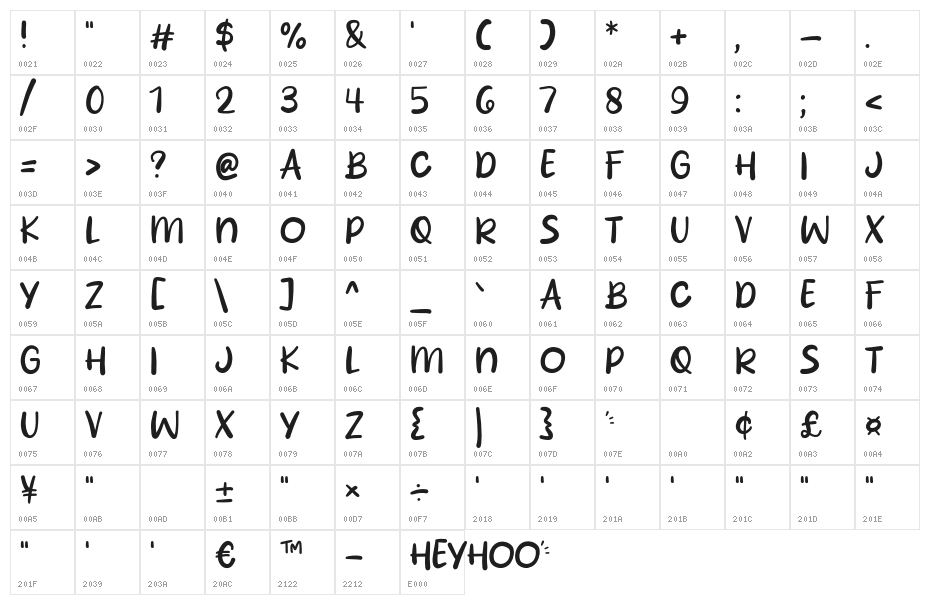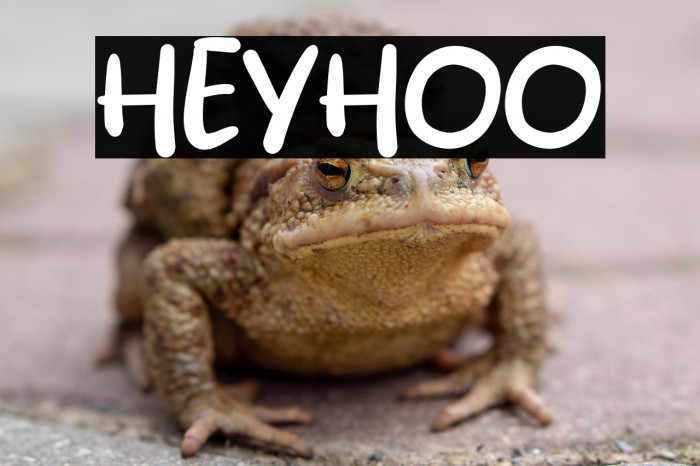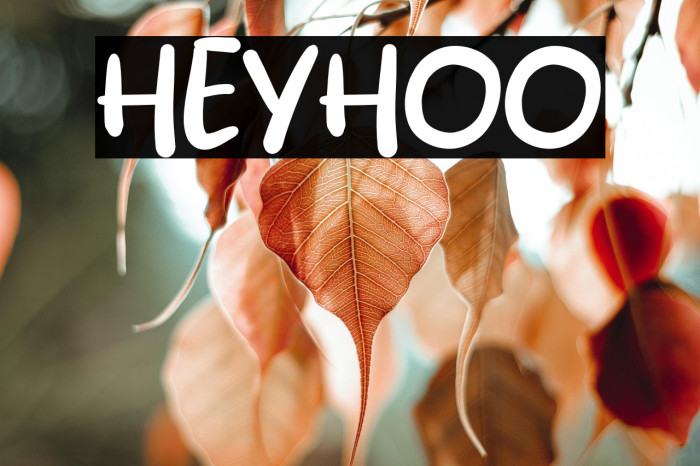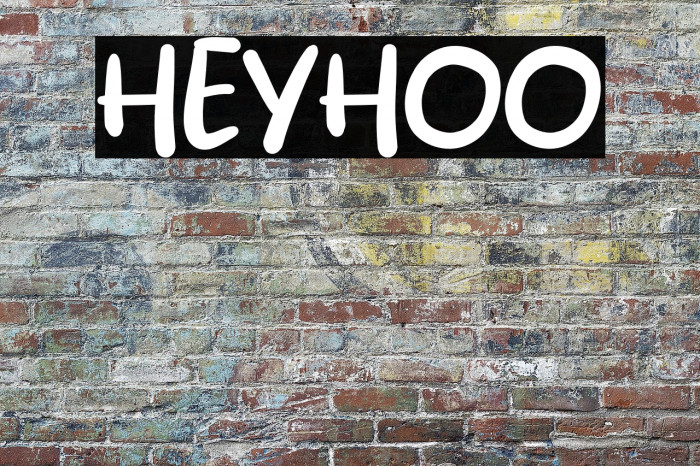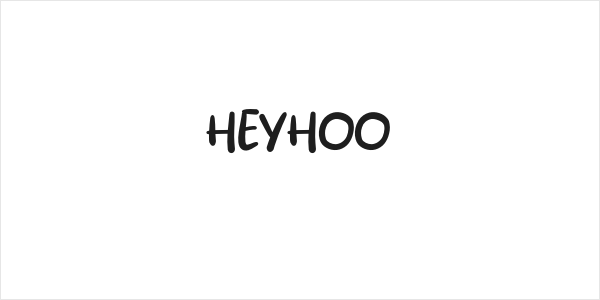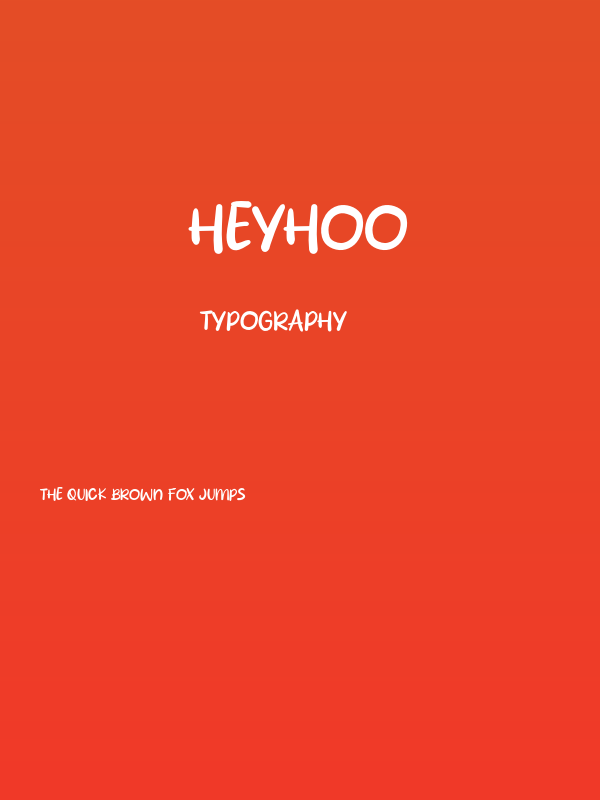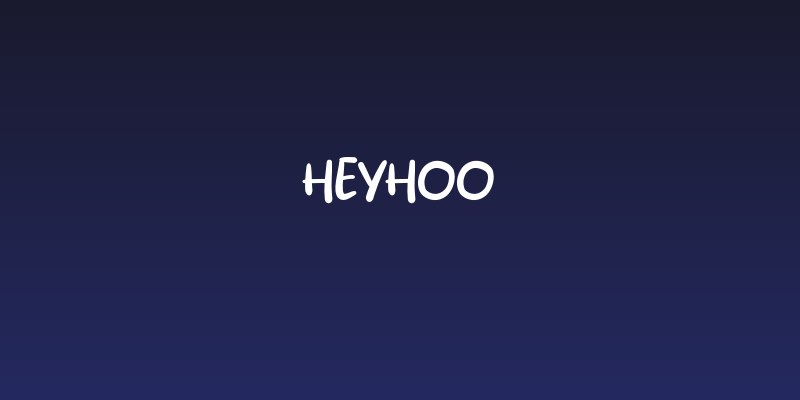
Heyhoo Font
Heyhoo Description
This playful and energetic font features a handwritten style with a casual, friendly appearance. The letters are bold and rounded, giving them a soft and approachable feel. The strokes are consistent in width, contributing to a uniform look across all characters. The font maintains a lively rhythm with its slightly irregular baseline, adding to its charm and personality. It is well-suited for projects that require a personal touch or a fun, informal vibe. The spacing between characters is balanced, ensuring readability while maintaining its whimsical style.
| Overall Style | Playful, Casual |
| Proposed Projects | Ideal for children's books, greeting cards, playful branding, and social media graphics. |